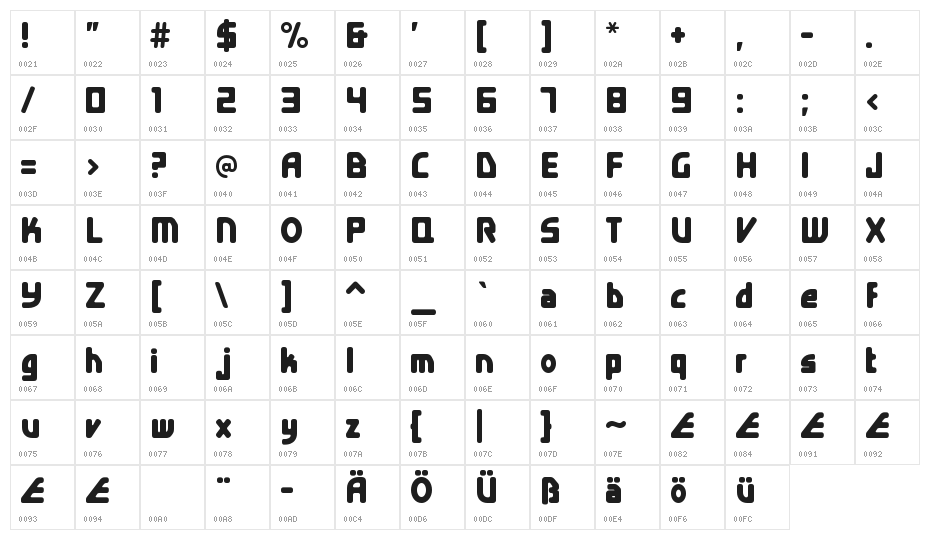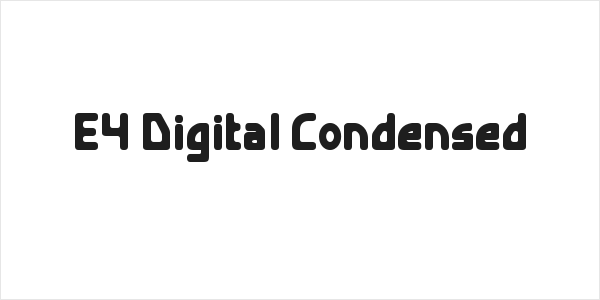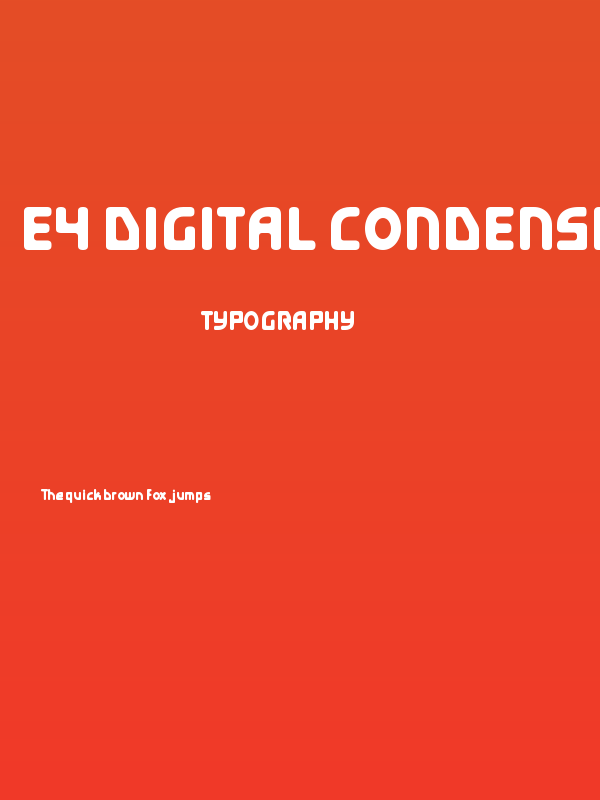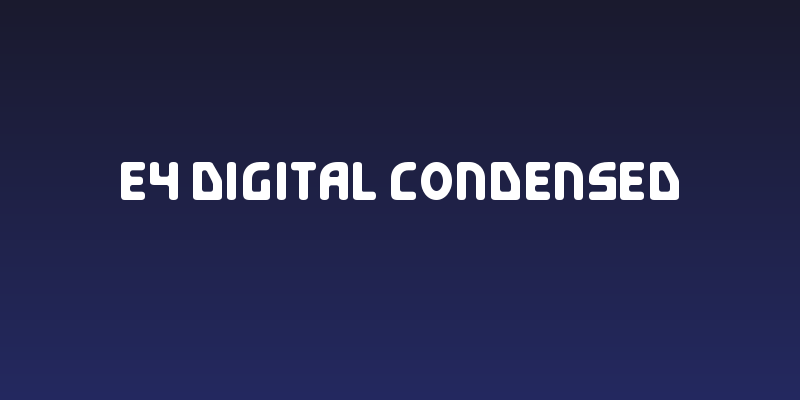
E4 Digital Condensed Font
✎ Futuristic
| Anwendungsfall | Headlines, Logos, Digital Interfaces |
| Vorgeschlagene Projekte | Ideal for tech-related branding, digital interfaces, modern posters, and futuristic design projects. |